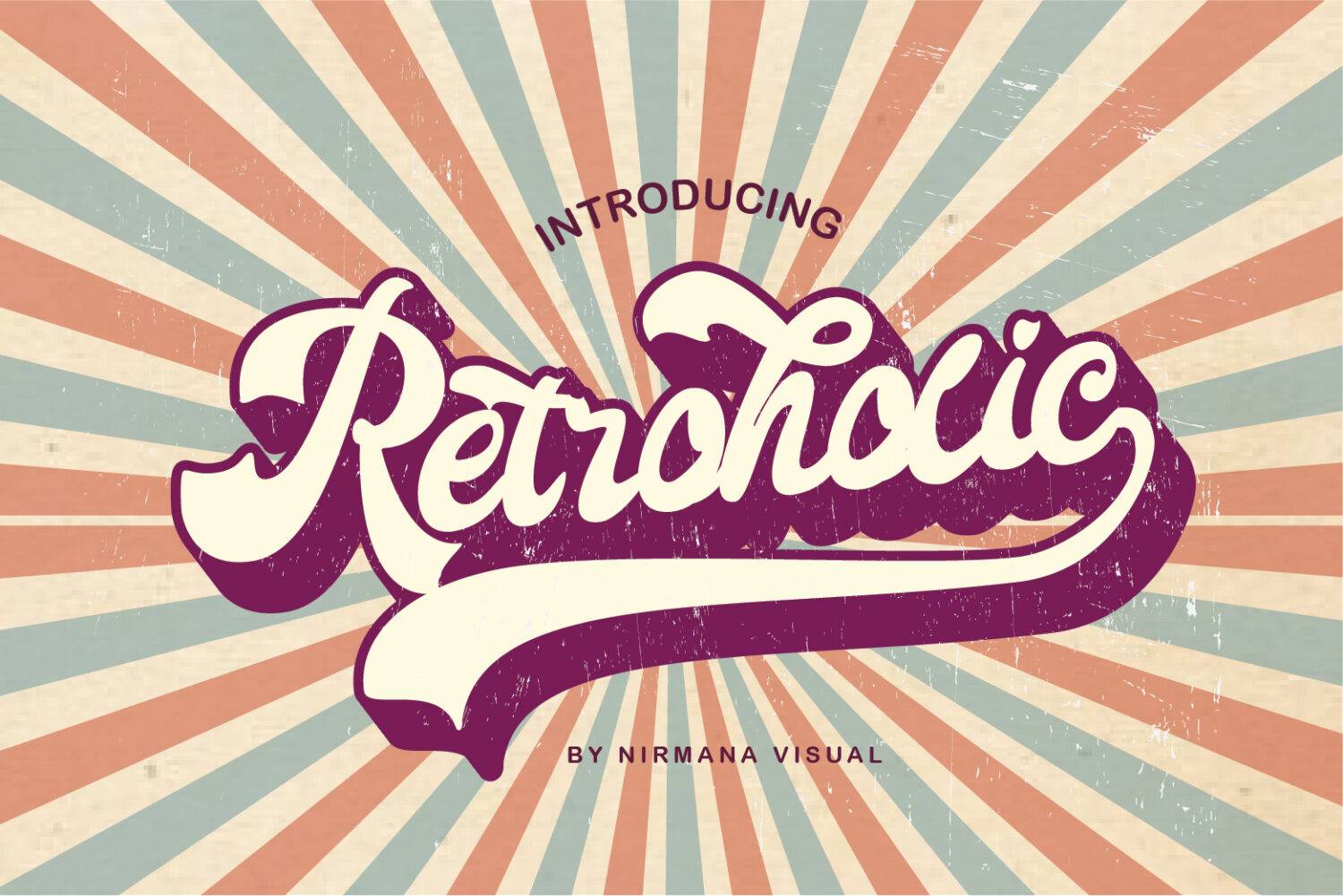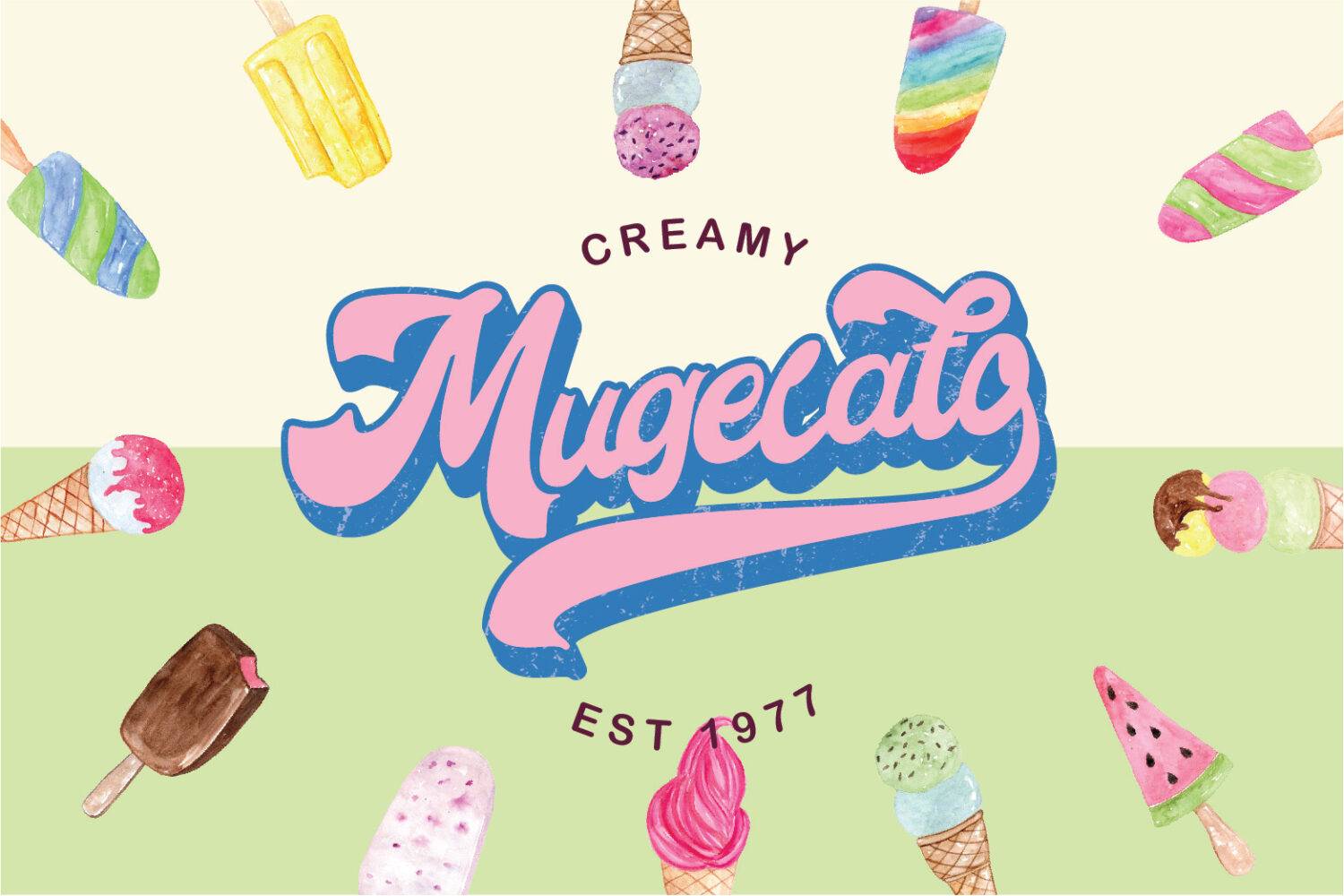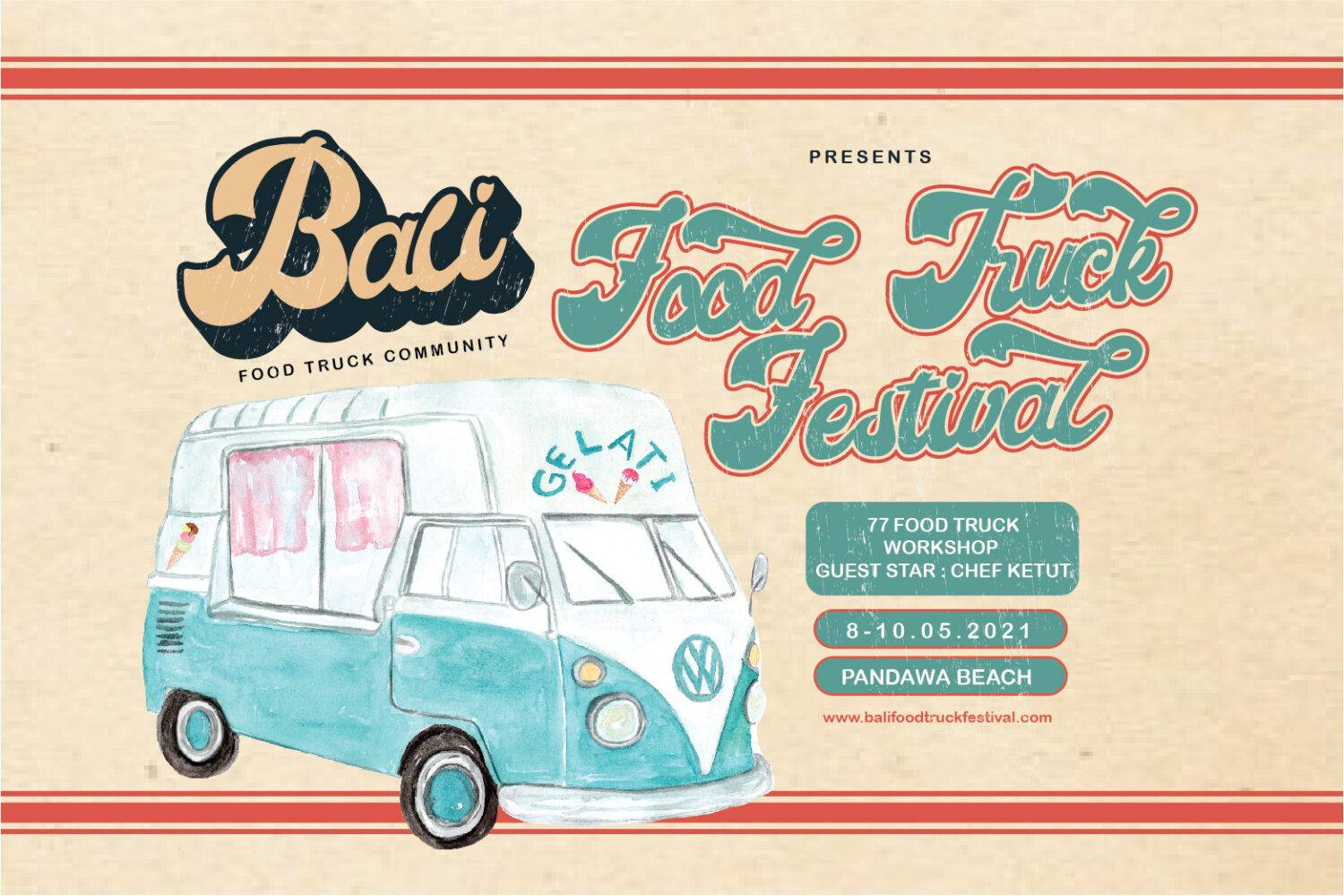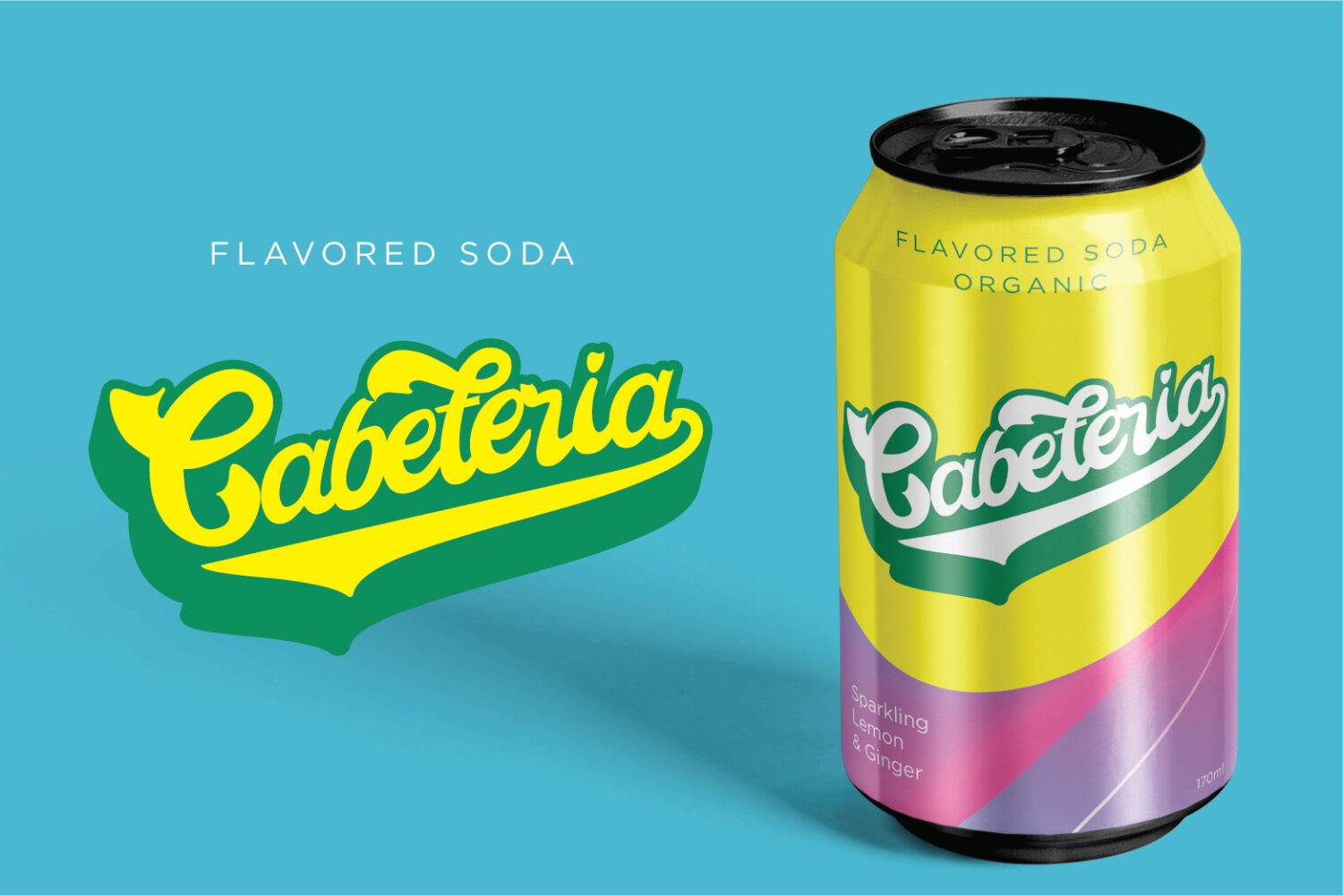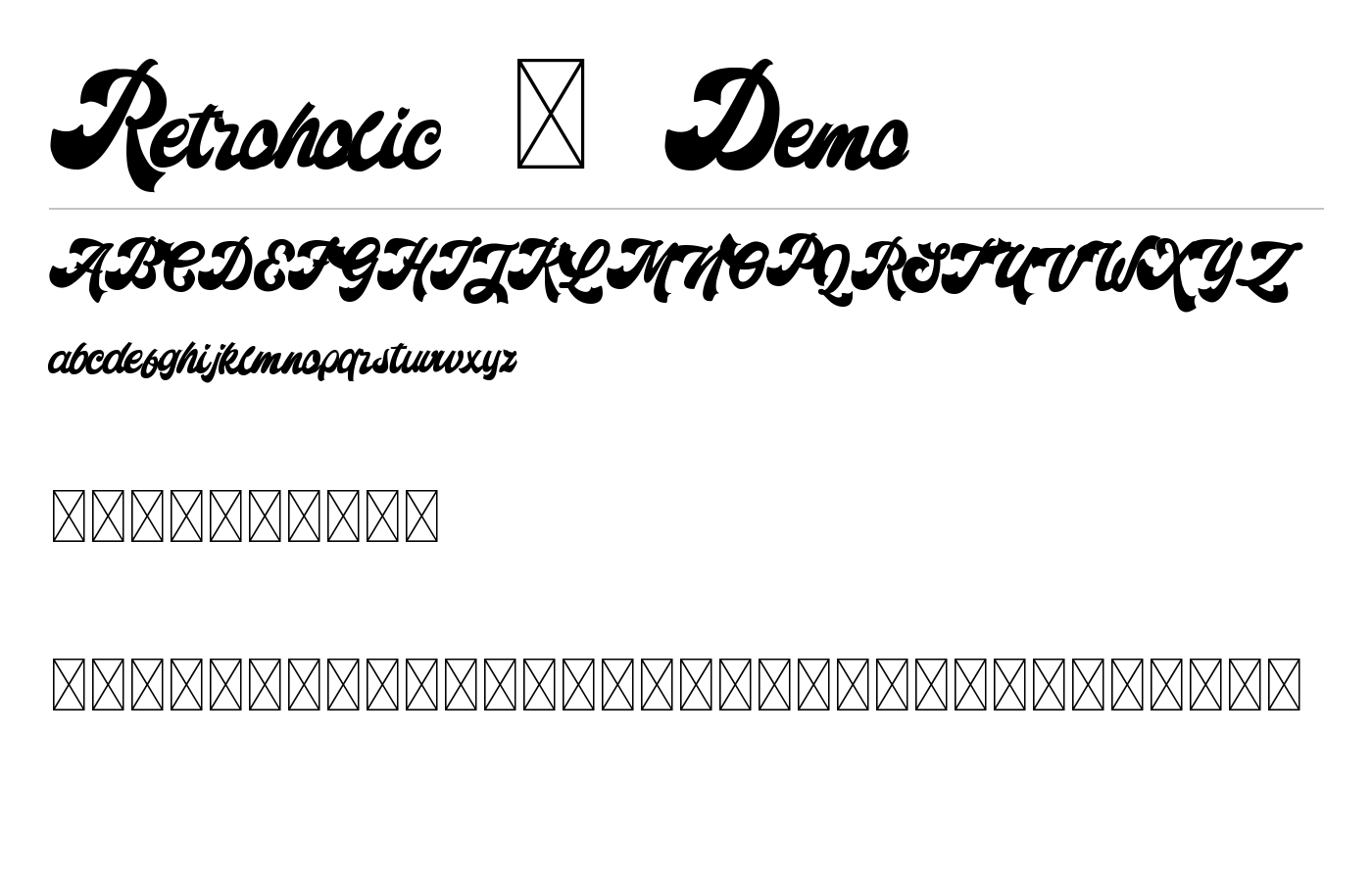
Retroholic is a bold and lively script font with a strong retro vibe, featuring thick, smooth strokes and tightly connected letterforms. Its playful yet elegant style makes it ideal for vintage-inspired branding, logos, and headlines where a touch of personality and nostalgia is desired. This font works best in creative projects that want to convey warmth, charm, and a distinctive classic feel.
Retroholic Font
About Retroholic Font
| Font family | Retroholic Font |
| Designer | Sigit Dwipa |